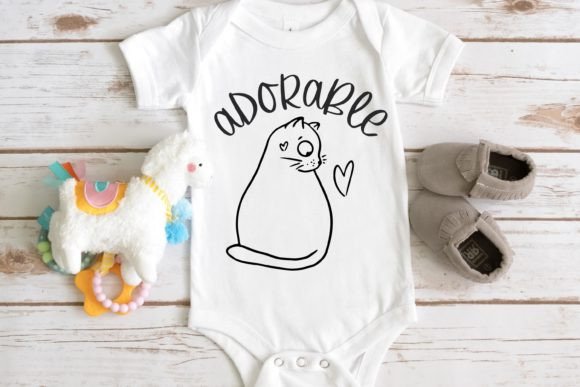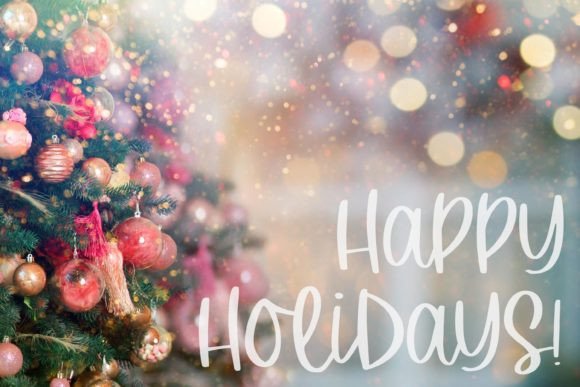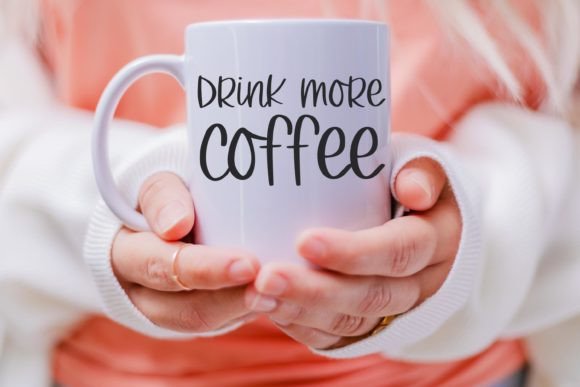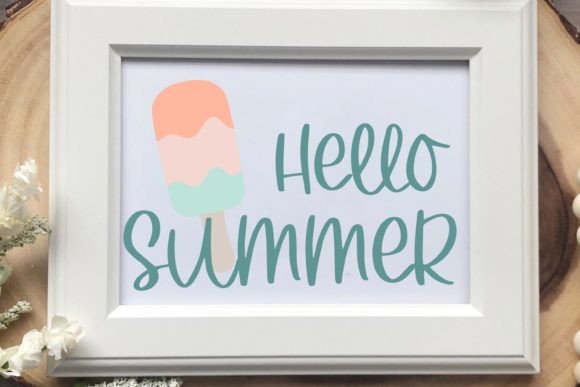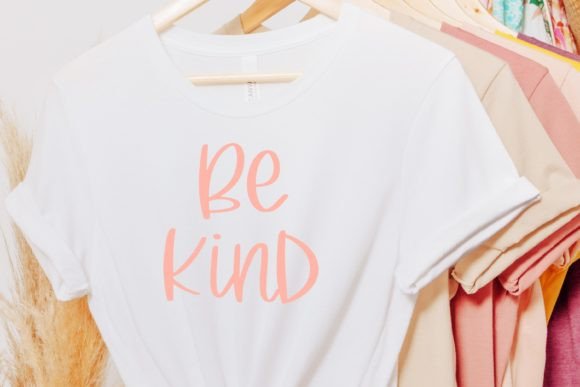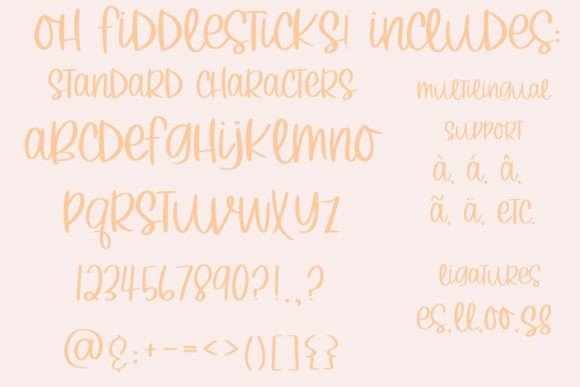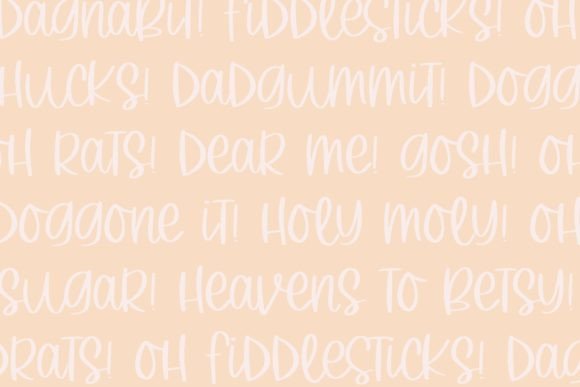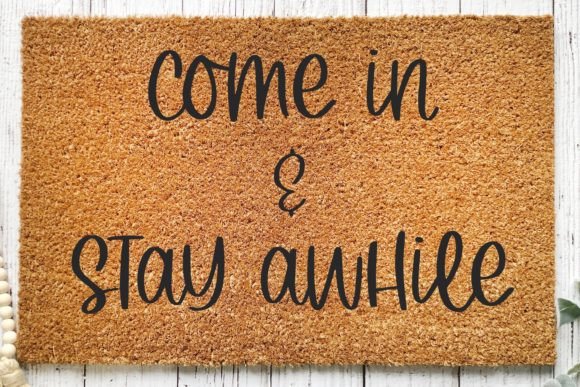
Oh Fiddlesticks Font
Oh Fiddlesticks Font: A Playful Handwritten Script
Looking for a font that’s playful, fun, and full of personality? The Oh Fiddlesticks Font brings cute handwritten charm to your creative work. Designed to make your designs feel lighthearted and approachable, this font is ideal for crafters, small business owners, and creatives of all types.
Whether you’re designing for print or digital, Oh Fiddlesticks adds a touch of whimsy to anything it touches.
Cute and Creative: Why Designers Love Oh Fiddlesticks Font
This font is bursting with playful energy. Its handwritten style makes it feel personal and inviting, while its rounded shapes and soft curves create a friendly, approachable look. The Oh Fiddlesticks Font is a great match for:
• Fun and quirky logos
• Greeting cards and invitations
• T-shirt and hoodie designs
• Printable wall art
• Stickers, labels, and packaging
• Social media graphics and content posts
If your brand or project aims to be fun, sweet, and just a little bit cheeky, this font is a perfect fit.
What Makes Oh Fiddlesticks Stand Out?
• Cute, handwritten style that feels light and friendly
• Ideal for fun and informal design themes
• Perfect for crafting, digital downloads, and print designs
Its playful look is especially popular for downloadable content on Etsy, POD (print-on-demand) shops, and small business branding. If you’re building a product or design people will love to engage with, Oh Fiddlesticks helps you stand out.
Versatile Font for Crafts and Social Media
With the rise of digital creators, content marketers, and Etsy sellers, fonts like Oh Fiddlesticks are more valuable than ever. Its hand-drawn vibe makes it perfect for Instagram quote graphics, TikTok overlays, Pinterest pins, and more.
Plus, crafters love using this font in downloadable files for:
• SVG bundles
• Printable gift tags
• Vinyl decals
• Planner stickers
• Classroom resources and homeschool worksheets
No matter your niche, the Oh Fiddlesticks Font helps add a playful tone and custom feel.
Whether you’re a graphic designer, small shop owner, or hobby crafter, the Oh Fiddlesticks Font brings joy and charm to your projects. It’s a fun, easy-to-use handwritten script that turns simple words into delightful visuals.